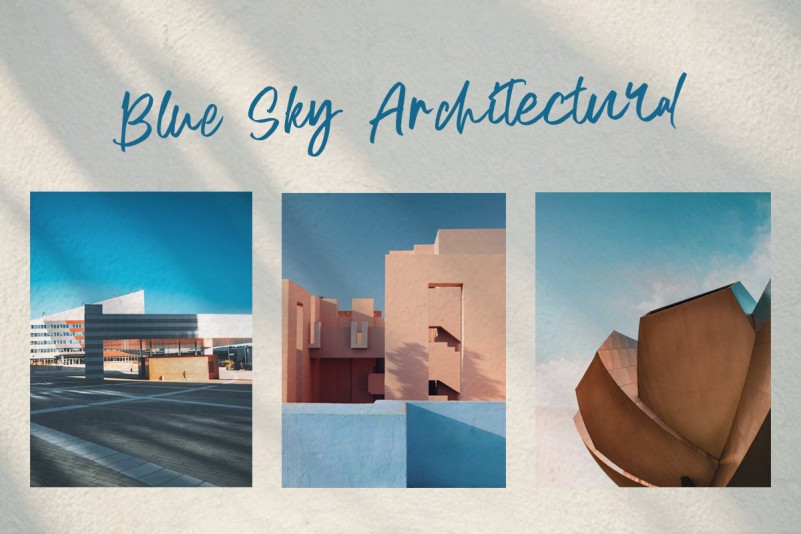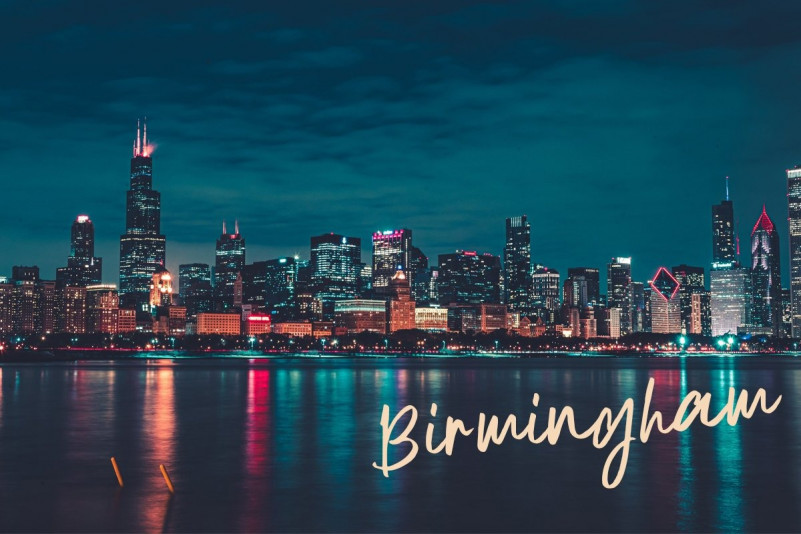
South Beast Brush Font
Introducing South Beast is a modern brush font with handwritten style and natural rough dry brush strokes .South Beast came with open type features and multilingual accent good for logotype, poster, badge, book cover, tshirt design, packaging and any more.